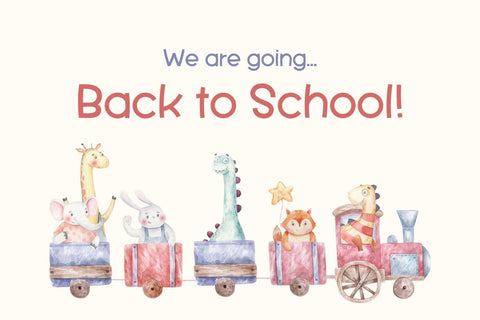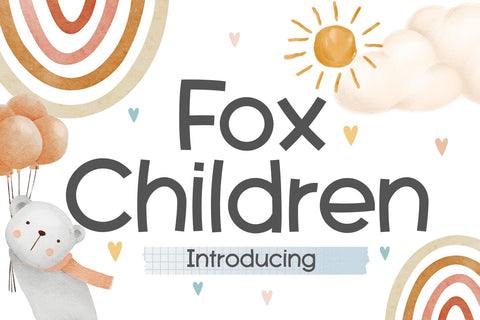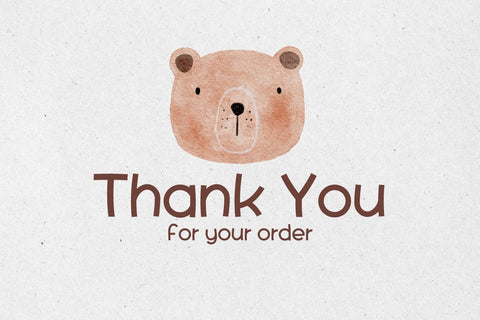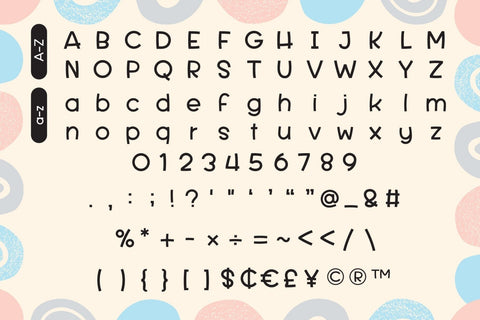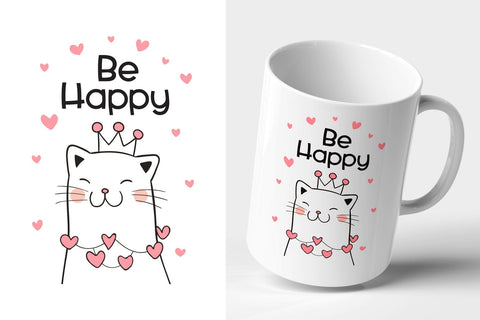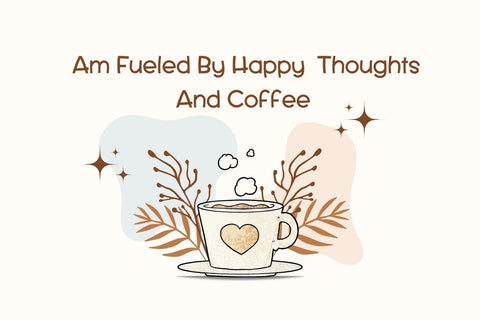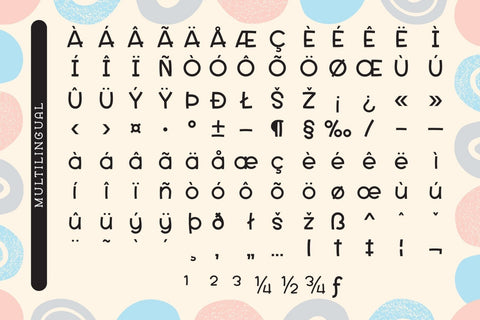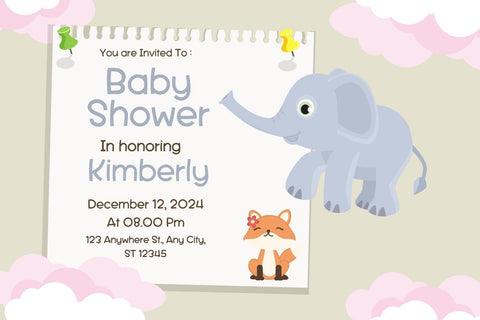
Fox Children Font
Fox Children is a cute and playful font. Due to its versatile vibe, it fits perfectly into any design idea, such as children's projects, blog posts, logos, branding, ads, invitations, greeting cards, planners, photo albums, decorations, and much more.